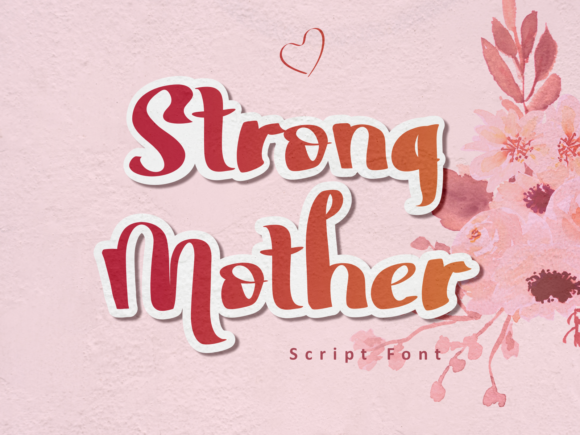
In a world awash with digital monotony, where fonts often blend in a sea of sameness, allow us to introduce you to Strong Mother Font – the script font destined to ignite your creative spirit and leave a lasting imprint on your designs.
Strong Mother Font is not just a font; it's a gateway to a world of captivating expression and boundless creativity. Crafted with meticulous care by the talented nryntdw, this font embodies the essence of bold, free-flowing penmanship, infused with a touch of playful charm.
With its striking, eye-catching characters, Strong Mother Font breaks free from the shackles of convention, daring you to embrace the unconventional. Whether you're weaving captivating display ads, crafting heartfelt invitations, or injecting personality into your social media posts, this font is your secret weapon to stand out from the crowd.
In the realm of display advertising, Strong Mother Font reigns supreme. Its bold strokes and playful curves command attention, captivating audiences with an irresistible allure. Let your words dance across the screen, each letter a work of art, inviting viewers to engage with your message on a deeper level.
But Strong Mother Font's versatility extends far beyond the confines of display ads. Its enchanting script style adds a touch of whimsy to wedding invitations, imbues greeting cards with warmth and sincerity, and transforms social media posts into mini masterpieces. With every use, Strong Mother Font breathes life into your words, transforming them into visual poetry.
No matter your creative endeavor, Strong Mother Font is your steadfast companion, ready to elevate your designs to new heights. Let your imagination soar as you explore the endless possibilities that await, knowing that this remarkable font will effortlessly elevate your work.